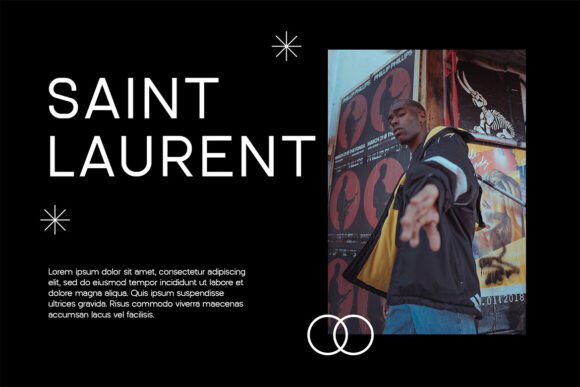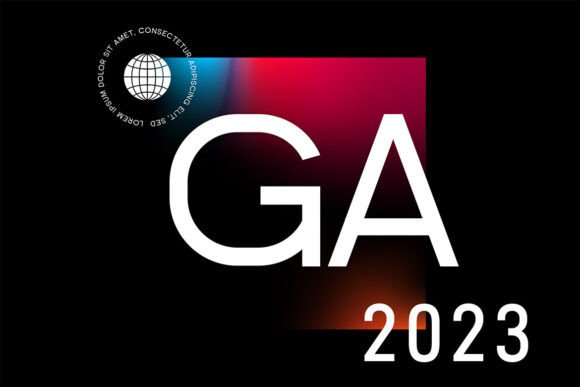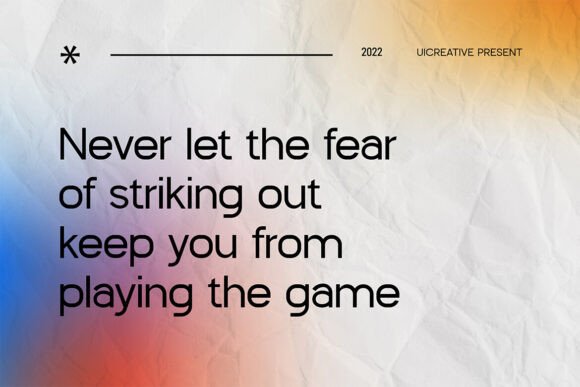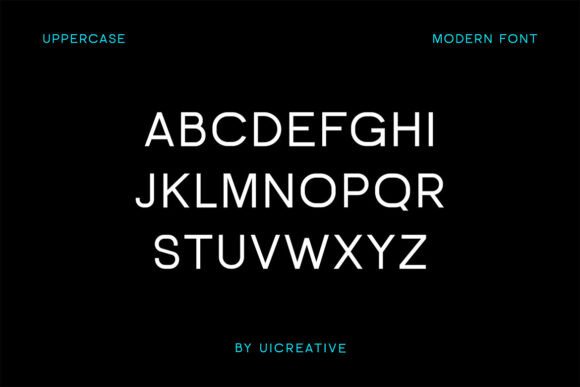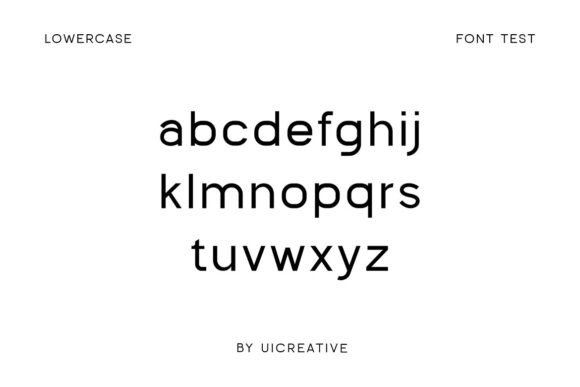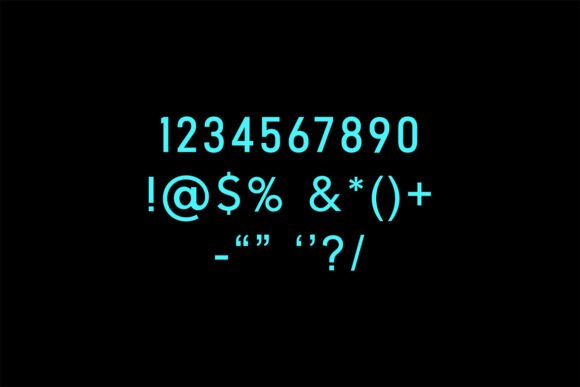
Introducing Capella Bellatrix Font: A Versatile Sans Serif Display Font
In the world of typography, a good font can make all the difference in the success of a design project. For designers and crafters looking for a versatile and stylish font, Capella Bellatrix is an excellent choice. This sans serif display font is designed to be used in a wide range of projects, from signature and stationery to logo design, wedding typography, and more.
What is Capella Bellatrix Font?
Capella Bellatrix is a sans serif display font that boasts a clean and modern design. Its sleek lines and minimalist aesthetic make it an ideal choice for designers looking to add a touch of sophistication to their projects. The font is highly legible, making it perfect for use in a variety of contexts, from digital displays to print materials.
What Can I Use Capella Bellatrix Font For?
One of the best things about Capella Bellatrix is its versatility. This font is suitable for a wide range of projects, including:
• Signature and stationery design
• Logo design and branding
• Wedding typography and invitations
• Magazine and book covers
• Website headers and digital displays
• Fashion-related branding and editorial design
Whether you’re working on a personal project or a client’s, Capella Bellatrix is a great choice for any design project that requires a modern and stylish font.
Masculine and Feminine Qualities
One of the unique features of Capella Bellatrix is its ability to display both masculine and feminine qualities. This makes it an excellent choice for fashion-related branding and editorial design, where the font needs to appeal to a wide range of audiences. The font’s clean lines and minimalist aesthetic give it a masculine edge, while its elegant curves and sophisticated feel make it suitable for feminine designs.
Why Choose Capella Bellatrix Font?
So why choose Capella Bellatrix over other fonts? Here are just a few reasons:
• Versatility: Capella Bellatrix can be used in a wide range of projects, from digital displays to print materials.
• Legibility: The font is highly legible, making it perfect for use in body text or headings.
• Style: Capella Bellatrix has a modern and stylish aesthetic that will elevate any design project.
• Uniqueness: The font’s ability to display both masculine and feminine qualities makes it a unique and versatile choice.
Tips for Using Capella Bellatrix Font
Here are a few tips for getting the most out of Capella Bellatrix:
• Use it as a display font: Capella Bellatrix is designed to be used as a display font, so use it to add a touch of style to your headings and titles.
• Experiment with different sizes: The font looks great in a range of sizes, from small body text to large display headings.
• Pair it with other fonts: Capella Bellatrix pairs well with a range of other fonts, so don’t be afraid to experiment with different combinations.
Capella Bellatrix is a versatile and stylish sans serif display font that is perfect for designers and crafters looking to add a touch of sophistication to their projects. With its clean lines, modern aesthetic, and ability to display both masculine and feminine qualities, this font is sure to become a go-to choice for a wide range of design projects.